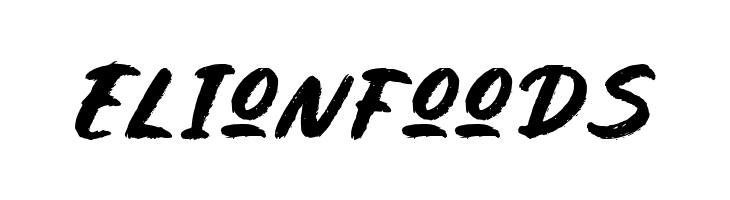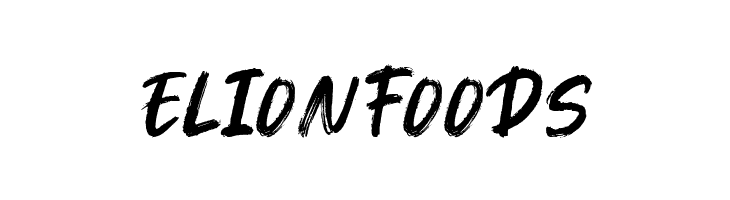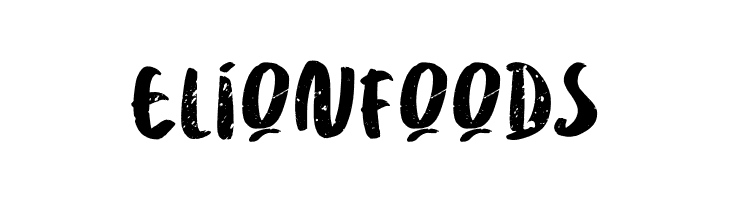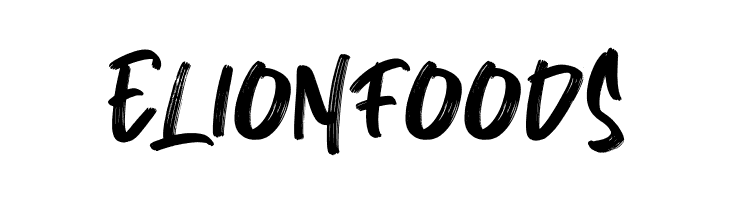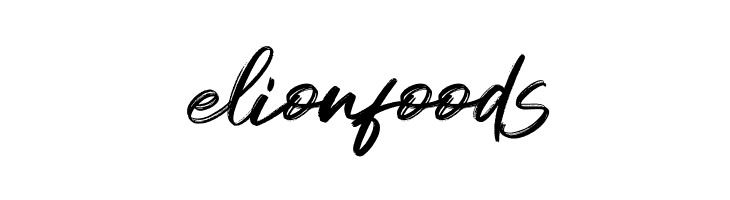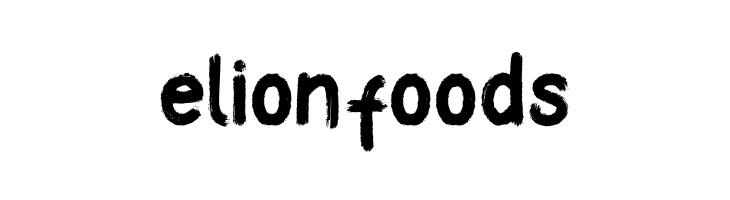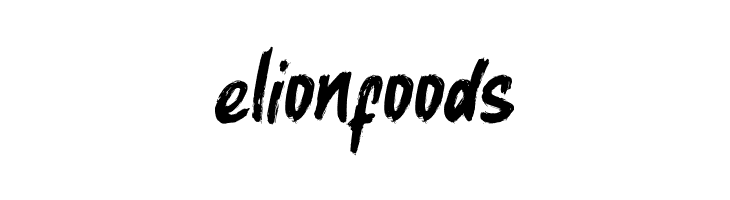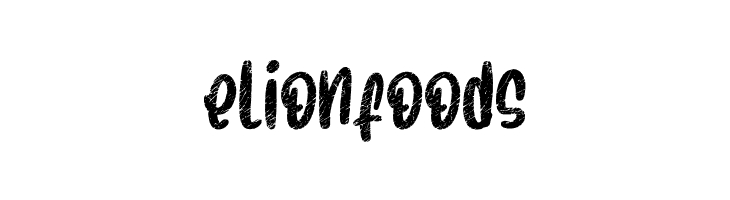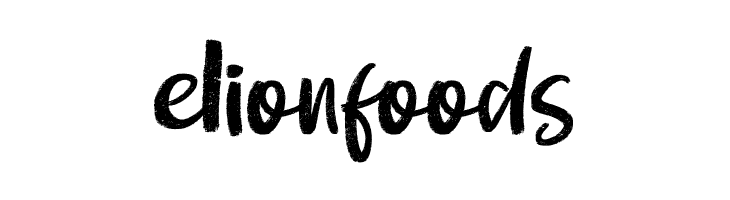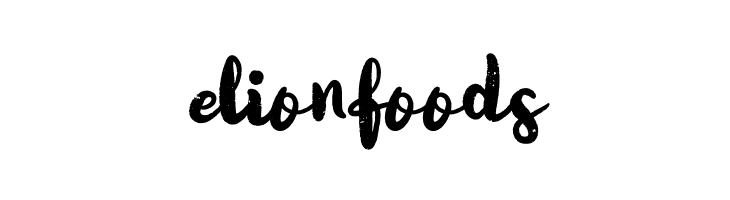
A bold, brush-style font with dynamic, hand-painted strokes.
A bold, brush script font with dynamic, hand-painted strokes.
A bold, textured, hand-painted style font with a dynamic, distressed look.
A bold, brush-style font with dynamic, hand-painted strokes.
A bold, brush-style font with a hand-painted, artistic appearance.
A bold, energetic script font with a hand-painted, dynamic style.
A bold, textured font with a vintage, hand-painted look.
A bold, textured, hand-painted style font with an expressive and dynamic appearance.
A bold, textured script font with a hand-painted appearance.